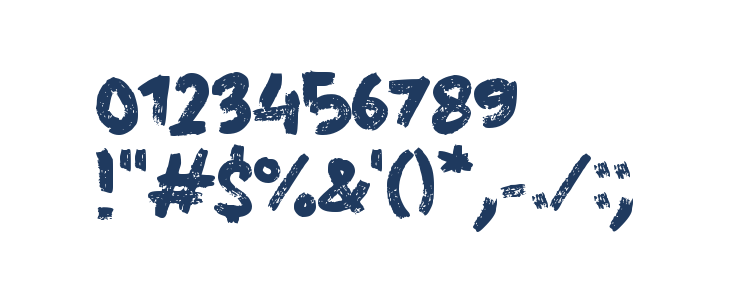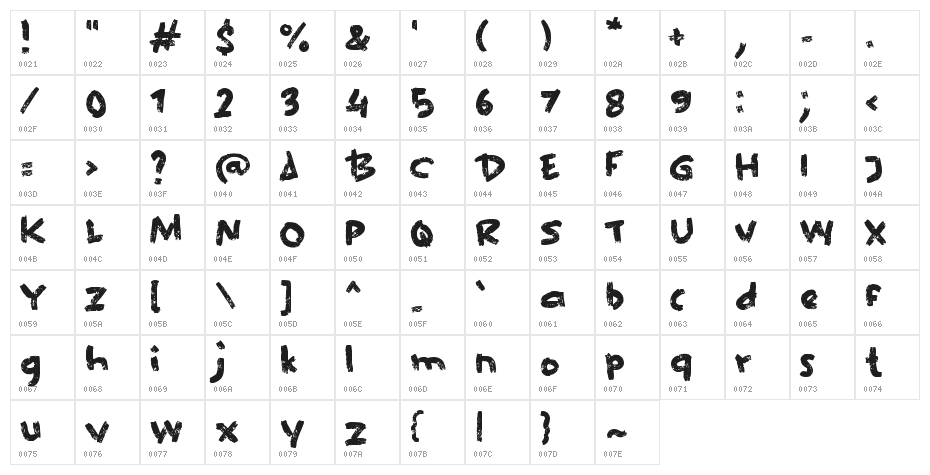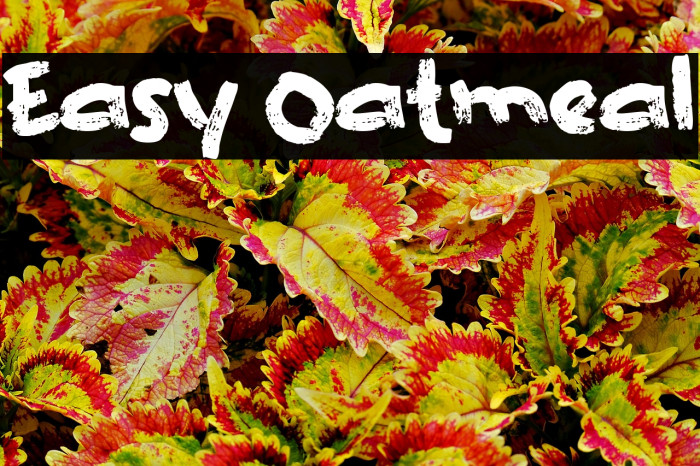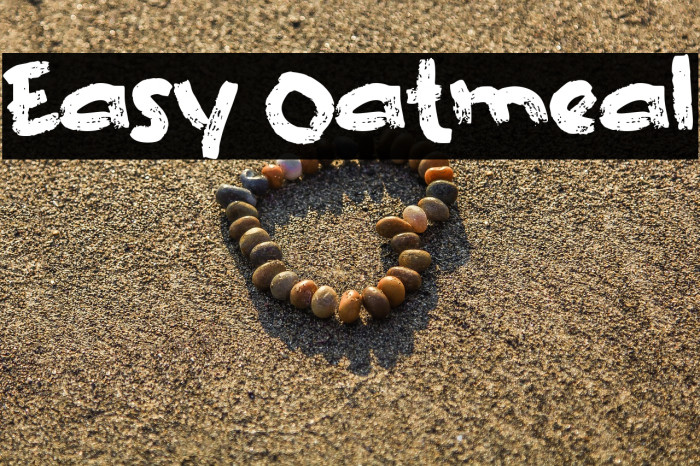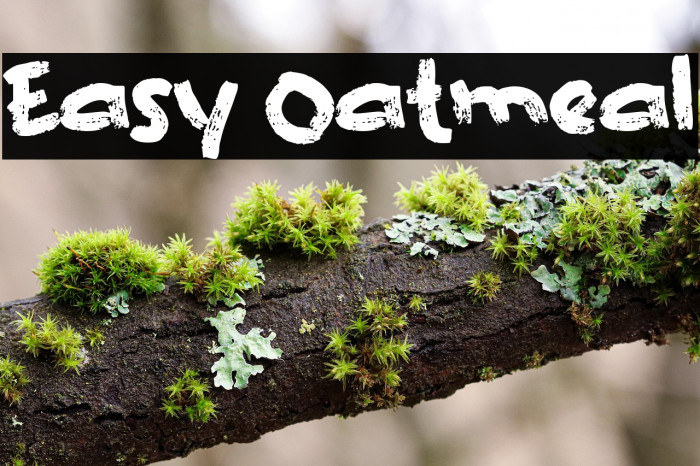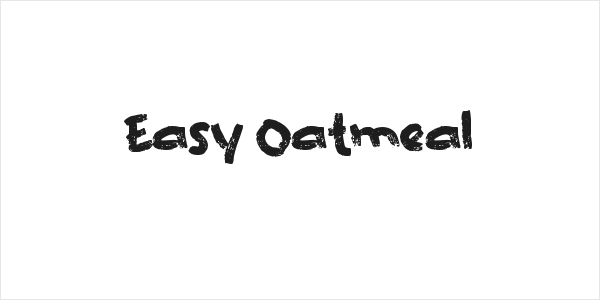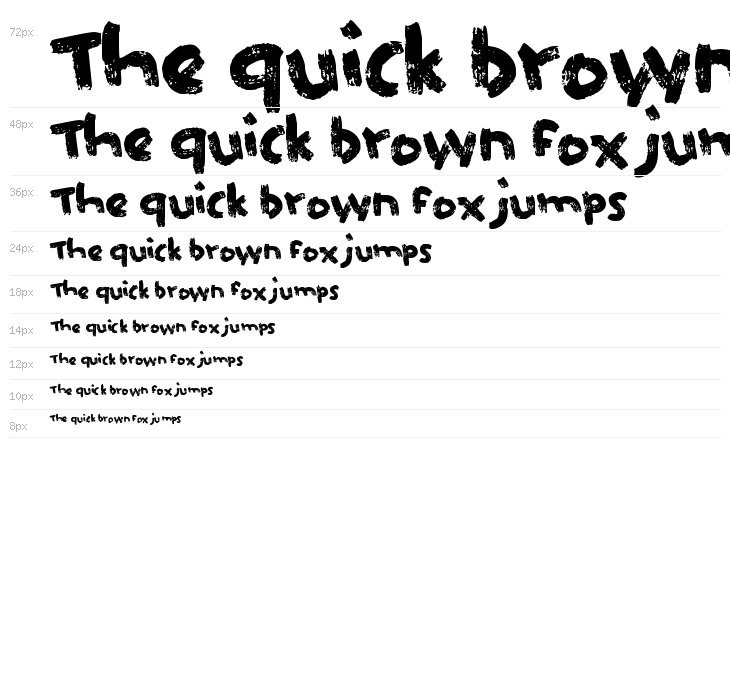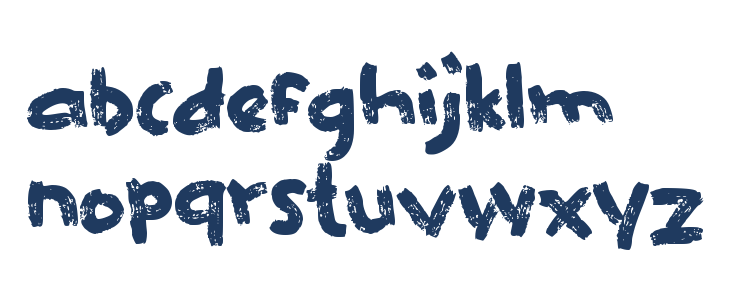
Easy Oatmeal Font
Easy Oatmeal Description
This font features a bold and rugged design with a textured, distressed appearance. The characters have an uneven, hand-painted look, giving them a dynamic and energetic feel. The strokes are thick and irregular, contributing to a sense of movement and spontaneity. This style is reminiscent of graffiti or street art, making it ideal for projects that require a bold, eye-catching aesthetic. The font maintains legibility despite its rough texture, with each letterform clearly distinguishable. The numbers and special characters follow the same design principles, ensuring consistency across all elements.
| Proposed Projects | Ideal for posters, album covers, streetwear branding, and any project needing a bold, artistic touch. |